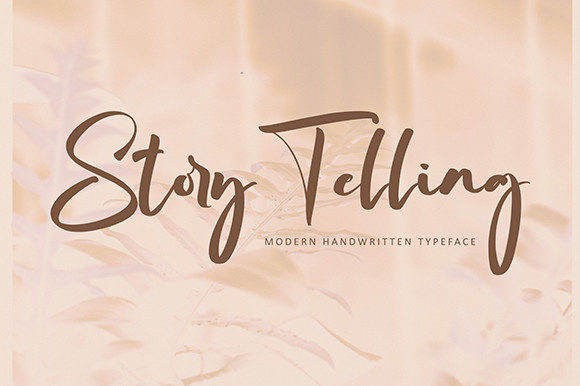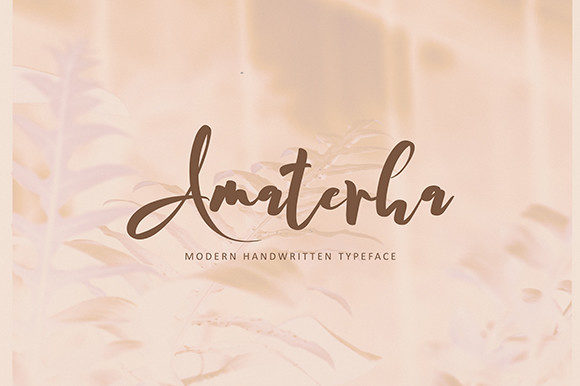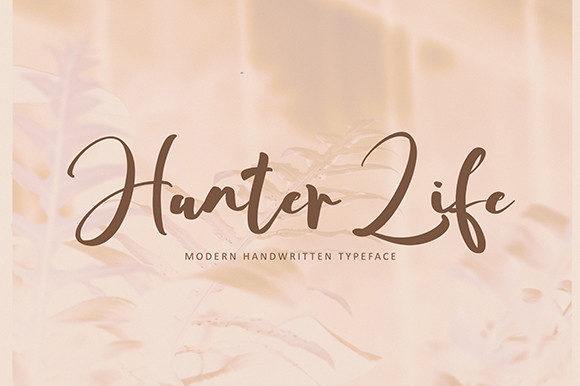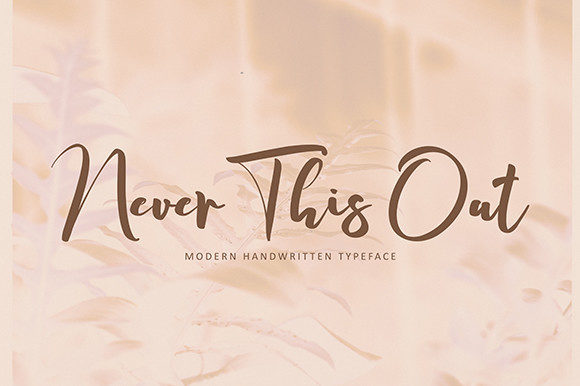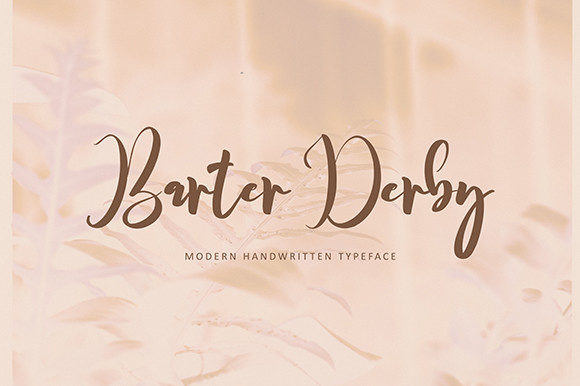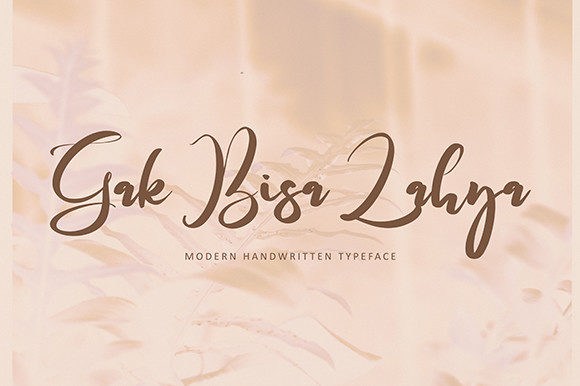
Introduction to Shout Haters Font
Shout Haters is a stylish and dainty script font.
| 📌 Product Name | Shout Haters Font |
| 👤 Author | Pineungtype & Missinklab |
It is suitable for any projects such as: logos, branding projects, label, photography, watermark, special events, and all your other lovely projects that need a beautiful script taste .
Key Features of Shout Haters Font
Why Choose Shout Haters Font?
Shout Haters Font offers exceptional quality and versatility, making it a valuable addition to your design toolkit. Whether you’re creating for personal projects or commercial use, Shout Haters Font delivers professional results.